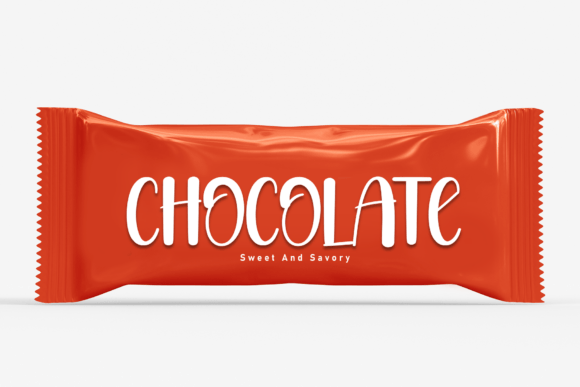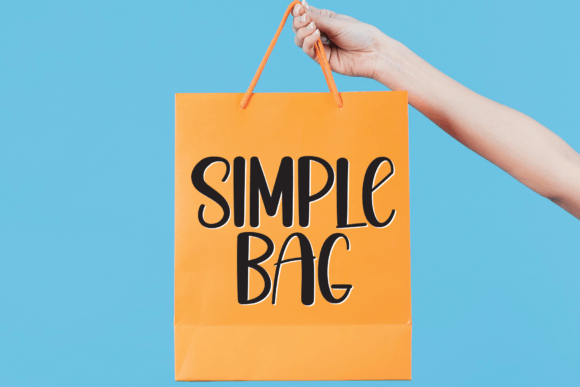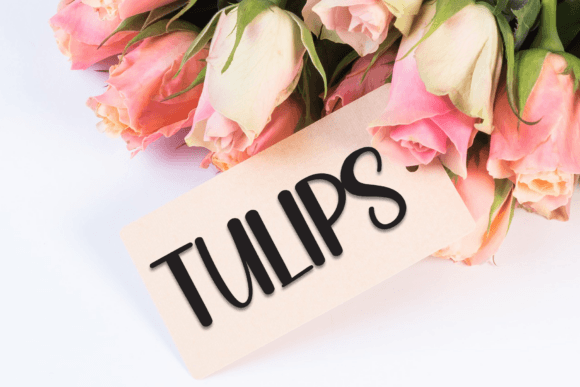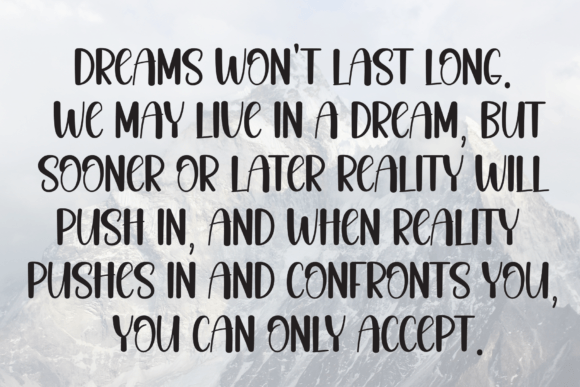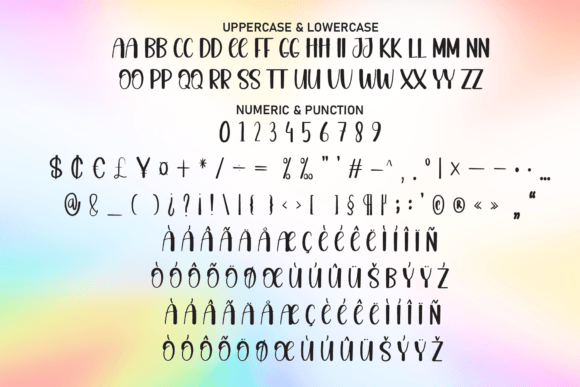
Introducing Colour Rainbow Font: The Ultimate Display Font for Creative Designs
Are you looking for a font that can add a touch of warmth and friendliness to your creative projects? Look no further than Colour Rainbow Font, a charming handwritten display font that is sure to captivate your audience. With its adorable and playful nature, this font is perfect for designs that require a dash of fun and a unique aesthetic.
A Font that Exudes Warmth and Friendliness
Colour Rainbow Font is a beautifully crafted font that is designed to infuse your creations with a delightful touch. Its handwritten style gives it a personal and approachable feel, making it perfect for designs that require a human touch. Whether you’re creating wedding invitations, greeting cards, or any other type of design, this font is sure to add a touch of warmth and friendliness that will make your project stand out.
Perfect for Creative Designs
Colour Rainbow Font is a versatile font that can be used for a wide range of creative designs. Its playful and adorable nature makes it perfect for:
- Blog headers and titles
- Branding and packaging designs
A Font that Offers a Unique Aesthetic
Colour Rainbow Font is not just a font, it’s an experience. Its unique aesthetic is sure to add an enchanting essence to your creative work. With its colourful and playful design, this font is perfect for designs that require a dash of fun and creativity. Whether you’re a designer, crafty DIY enthusiast, or a small business owner, this font is sure to help you create designs that stand out from the crowd.
Key Features of Colour Rainbow Font
Here are some of the key features that make Colour Rainbow Font a must-have for designers and crafters:
- Handwritten display font with a warm and friendly feel
- Adorable and playful design that’s perfect for creative projects
- Unique aesthetic that’s sure to add a touch of fun and creativity to your designs
- Perfect for wedding invitations, greeting cards, and other types of designs that require a personal touch
- Easily customizable to fit your design needs
Colour Rainbow Font is a charming handwritten display font that is sure to add a touch of warmth and friendliness to your creative projects. With its adorable and playful nature, this font is perfect for designs that require a dash of fun and a unique aesthetic. Whether you’re a designer, crafty DIY enthusiast, or a small business owner, this font is sure to help you create designs that stand out from the crowd. So why wait? Download Colour Rainbow Font today and experience the allure of this enchanting font for yourself.